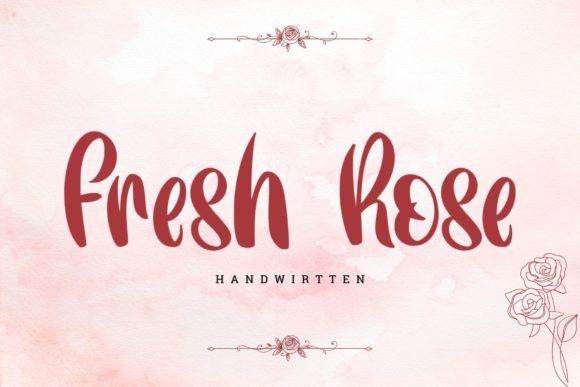
Introducing Fresh Rose: The Quirky Handwritten Font to Elevate Your Designs
Are you tired of using the same old fonts in your designs? Do you want to add a touch of personality and whimsy to your projects? Look no further than Fresh Rose, a quirky handwritten font that’s sure to bring out the natural characteristics of your work. In this article, we’ll dive into the world of Fresh Rose and explore how this versatile font can elevate your designs, from websites and SVG designs to home decor, branding, blogs, logos, invitations, and more.
Handwritten fonts have a way of adding a personal touch to any design. They evoke a sense of warmth, friendliness, and approachability that’s hard to replicate with more formal fonts. Fresh Rose is no exception. This beautiful font is made by handwriting, which gives it a unique, organic feel that’s perfect for designers and crafters looking to add a bit of personality to their work.
What Makes Fresh Rose Special?
So, what sets Fresh Rose apart from other handwritten fonts on the market? Here are just a few things that make this font truly special:
- Quirky and Playful: Fresh Rose has a quirky, playful vibe that’s perfect for designers who want to add a bit of whimsy to their work. Whether you’re creating a logo, invitation, or website, this font is sure to bring a smile to your audience’s face.
- Versatile: Fresh Rose is an incredibly versatile font that can be used in a wide range of design applications. From websites and blogs to home decor and branding, this font can adapt to any style or theme.
- Easy to Read: Despite its playful nature, Fresh Rose is surprisingly easy to read. This makes it perfect for body text, headings, and titles.
- Unique: Fresh Rose has a unique, one-of-a-kind feel that’s sure to set your designs apart from the crowd.
Using Fresh Rose in Your Designs
So, how can you use Fresh Rose in your designs? Here are just a few ideas to get you started:
Websites
Fresh Rose is perfect for websites that want to add a touch of personality to their design. Use it as a heading font, or as a body text font for a more informal feel.
SVG Designs
SVG designs are a great way to use Fresh Rose in a more creative way. Try using it to create custom graphics, icons, or illustrations.
Home Decor
Fresh Rose is also perfect for home decor designs, such as printable art, wall decor, and more. Add a touch of whimsy to your designs with this beautiful font.
Branding
Use Fresh Rose to create a unique brand identity for your business. This font is perfect for logos, business cards, and more.
Blogs
Fresh Rose is a great font for bloggers who want to add a touch of personality to their blog. Use it as a heading font, or as a body text font for a more informal feel.
Logos
Fresh Rose is perfect for logos that want to stand out from the crowd. Use it to create a unique, one-of-a-kind logo that’s sure to get noticed.
Invitations
Use Fresh Rose to create beautiful, one-of-a-kind invitations for weddings, parties, and more.
| Font Name | Fresh Rose Font |
| Author | Esa Maradany |